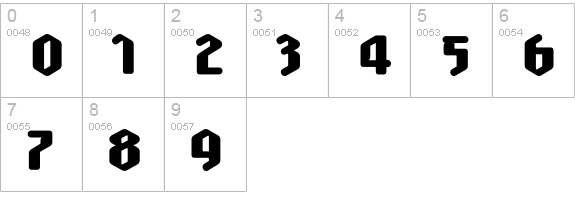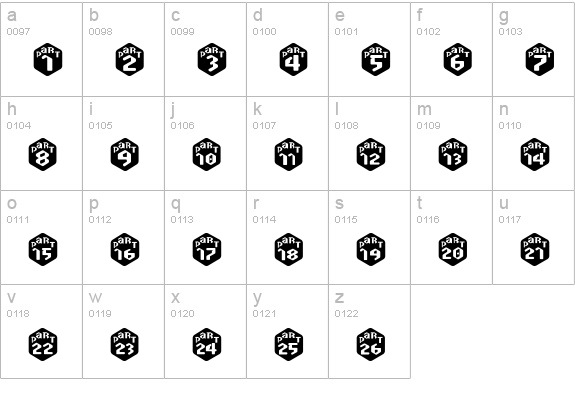
Scrotnig-HeavyInitials2002 Font Details
Introducing Scrotnig-HeavyInitials2002, a font that exudes a bold and captivating presence. With its unique and intricate design, this font is perfect for making a lasting impression on any project. The heavy initials add a touch of grandeur and elegance, making it ideal for titles, headings, and branding materials. Scrotnig-HeavyInitials2002 is not only visually stunning, but it also offers a seamless reading experience. Each letter is carefully crafted to ensure optimal legibility, even at smaller sizes. This font strikes the perfect balance between style and functionality, making it suitable for a wide range of creative endeavors. One of the best aspects of Scrotnig-HeavyInitials2002 is that it is available for free! That's right, you can download this captivating font without spending a single penny. Simply head over to FontsMarket.com, and you will find Scrotnig-HeavyInitials2002 waiting for you, ready to elevate your designs to new heights. Whether you're designing a poster, creating a logo, or working on a personal project, Scrotnig-HeavyInitials2002 is the perfect choice. Its versatility and free availability make it a must-have for any designer or creative enthusiast. So don't miss out on this fantastic opportunity to enhance your designs with the captivating Scrotnig-HeavyInitials2002 font, freely available for download at FontsMarket.com.